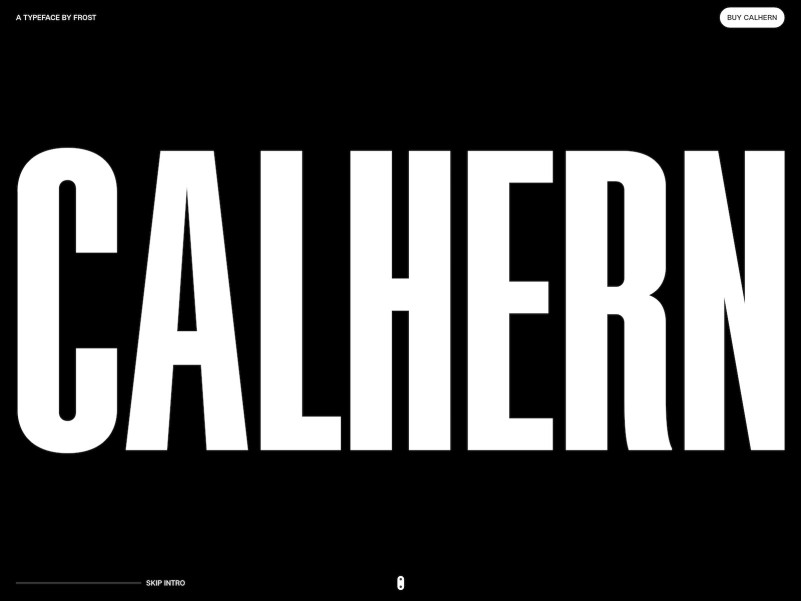
Calhern Font is a typeface influenced from the variety of typography found in film posters and title sequences. The purpose of Calhern is to offer a single family that can fluctuate in extremes, from a light weight and condensed width to a heavy weight and wide width.
CALHERN Font